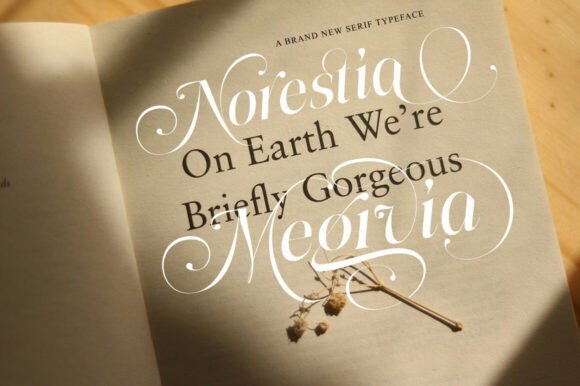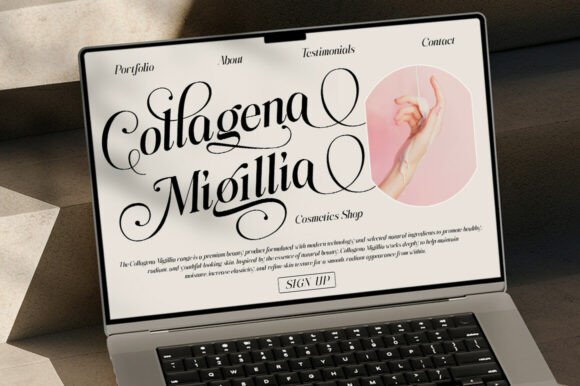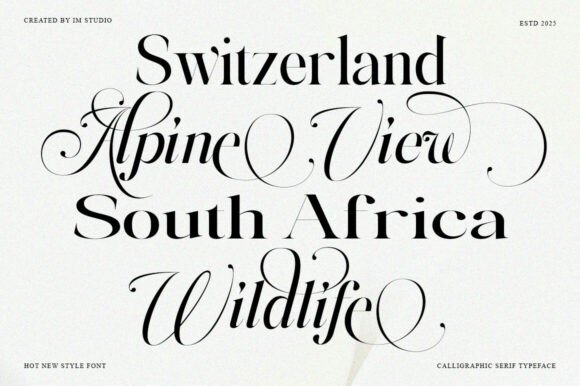
Introduction to Megivia Font
Introducing Megivia, a captivating calligraphy serif typeface that masterfully marries timeless grace with contemporary polish.
The strength of Megivia lies in its artful balance of romantic flair and clean structure, created through thoughtful strokes and nuanced particulars The typeface boasts an array of styles – Regular, Expanded, Condensed, Scaled Italic, and Slant, each skilfully designed with sweeping curves and alternates that are meticulously drawn.